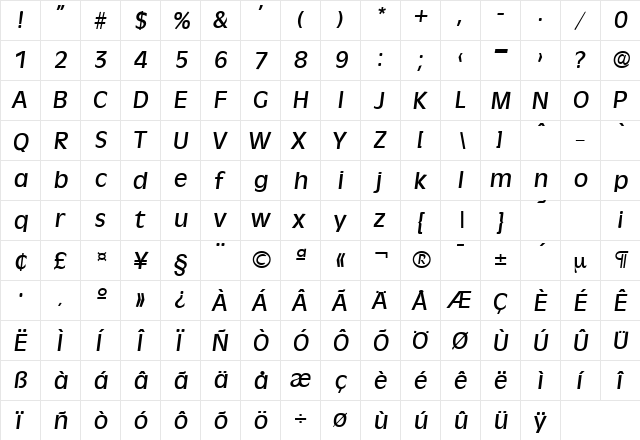
Ravenna-Serial-Medium RegularItalic Font Preview
Ravenna-Serial-Medium RegularItalic
Design Context for Ravenna-Serial-Medium Typeface
Ravenna-Serial-Medium offers clean, dependable letterforms without strong stylistic allegiance, making it a practical choice for designers who need flexibility. The slanted form adds forward momentum and visual energy.
Pro Tip: Use Ravenna-Serial-Medium for emphasis, pull quotes, and subheadings where its slanted energy can add rhythm to the layout.